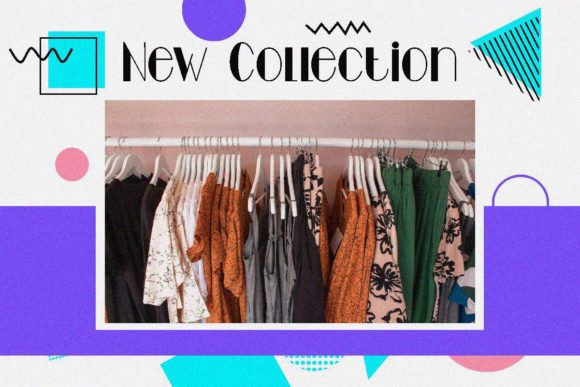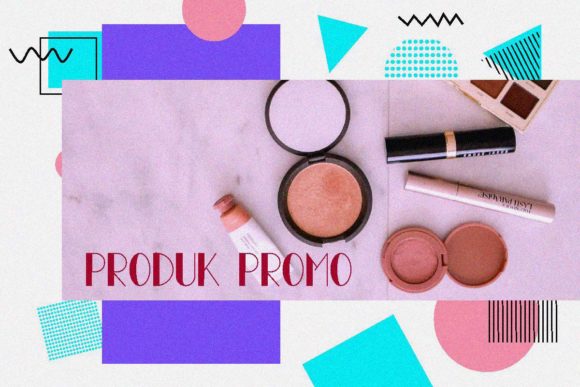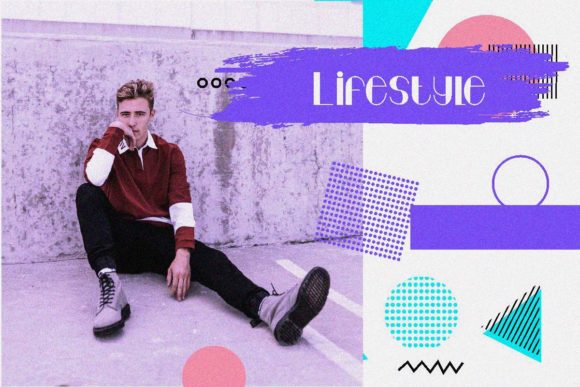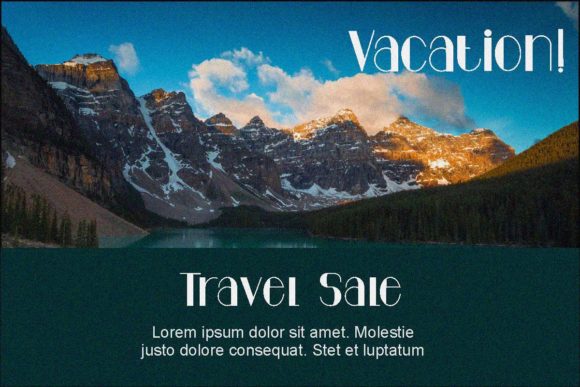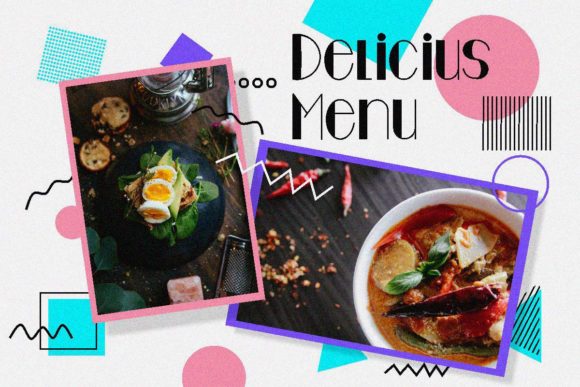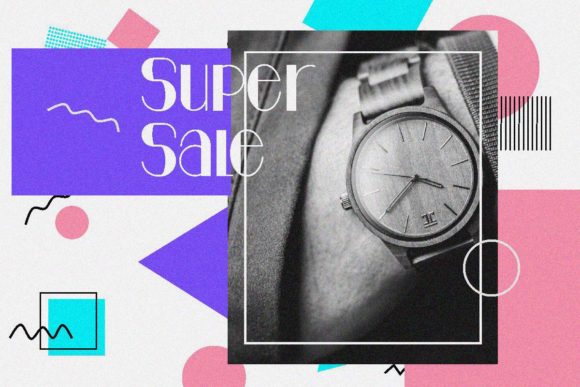
Discover the Versatility of Black Memphis Font: Elevate Your Designs with a Fresh and Casual Twist
In the realm of typography, few fonts manage to strike a balance between coolness, adaptability, and readability. However, the Black Memphis font stands out as a remarkable exception. This font embodies a unique blend of modern freshness and casual charm, making it an excellent choice for a wide array of design projects. Whether you’re working on formal or informal designs, Black Memphis feels equally at home, offering endless possibilities for creative expression.
The Essence of Black Memphis Font
Black Memphis is more than just a font; it’s a design statement. Its sleek lines and robust structure give it a solid, dependable feel, while its clean and uncluttered appearance ensures readability across various platforms and sizes. This font’s versatility stems from its ability to convey a sense of modernity and approachability simultaneously, making it perfect for designers and crafters looking to infuse their work with a contemporary yet relaxed vibe.
Key Features of Black Memphis
- Readability: One of the standout features of Black Memphis is its exceptional readability. The font’s design ensures that it remains clear and legible, even at smaller sizes, making it ideal for use in digital media, such as websites and mobile applications, as well as in print materials.
- Fresh and Casual: Black Memphis brings a fresh and casual feel to any design. Its modern aesthetic is perfect for projects that require a current and trendy look, from branding and advertising to packaging and editorial design.
- Adaptability: The adaptability of Black Memphis is one of its most compelling attributes. It seamlessly transitions between formal and informal designs, allowing designers to use it across a diverse range of projects. Whether you’re creating a corporate brochure or a social media graphic, this font adjusts effortlessly to suit your design needs.
Applications of Black Memphis Font
The versatility of Black Memphis makes it suitable for a myriad of design applications. Here are some of the areas where this font truly shines:
- Branding and Logo Design: Create a lasting impression with Black Memphis. Its bold and modern look makes it an excellent choice for logos and brand identities that aim to appear fresh and approachable.
- Digital Media: Enhance your digital content with the clean and readable Black Memphis font. It’s perfect for website headers, social media posts, and mobile app interfaces.
- Print Design: From brochures and flyers to posters and business cards, Black Memphis adds a touch of modern sophistication to any print material.
- Packaging Design: Make your product stand out on the shelves with eye-catching packaging designs featuring the Black Memphis font.
Tips for Using Black Memphis Effectively
To maximize the impact of Black Memphis in your designs, consider the following tips:
- Pair with Complementary Fonts: While Black Memphis is versatile on its own, pairing it with complementary fonts can enhance its appeal. Choose fonts that contrast with Black Memphis in terms of style and weight to create visual interest.
- Experiment with Colors: Don’t be afraid to experiment with different colors. Black Memphis works well with a wide range of color schemes, from bold and vibrant to soft and pastel.
- Consider the Context: Always consider the context in which your design will be viewed. Ensure that Black Memphis aligns with the tone and message of your project.
Black Memphis is a font that feels equally cool and adaptable, offering a fresh and casual alternative to more traditional typefaces. Its readability, coupled with its modern and approachable aesthetic, makes it an invaluable asset for designers and crafters. By incorporating Black Memphis into your creations, you’ll discover a world of endless possibilities, enabling you to bring your design ideas to life with style and versatility.